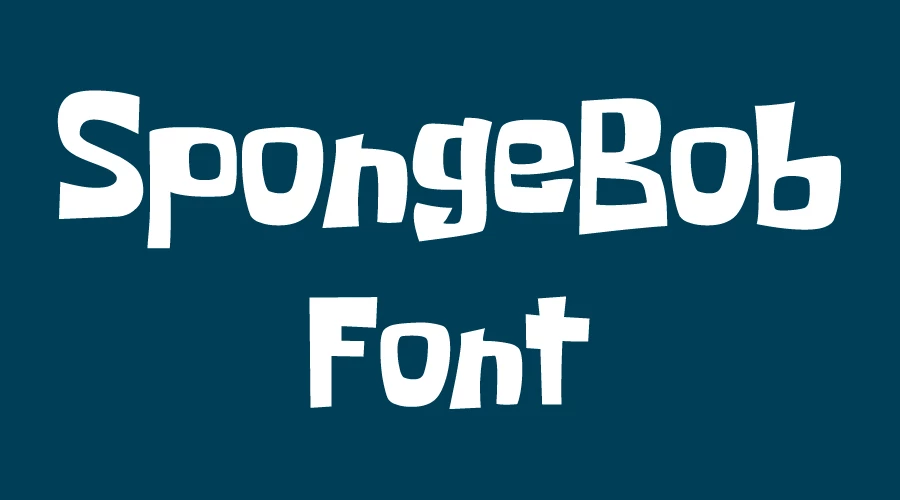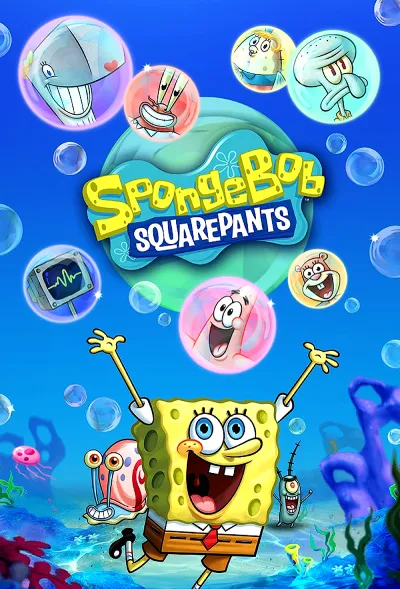
SpongeBob font is a term that refers to the various fonts inspired by the famous TV show SpongeBob SquarePants, which airs on Nickelodeon. It is an American animated television series that features the adventures of SpongeBob and his friends in the underwater city of Bikini Bottom. The show is popular among kids and adults alike.
The SpongeBob SquarePants logo uses two different fonts: “SpongeBob” and “SquarePants”.
SpongeBob Fonts
Spongeboy Me Bob
The Spongeboy Me Bob font is converted directly from letters embedded in the old Spongebob movie website. It is a very accurate recreation of the Spongebob font, with some additional punctuation and symbols. It was created by a fan named EyeOfTheLioness.
SpongeBob Font
Another fan-made replica font recreated by FontGet.
SpongeBoy Regular Font
This is one of the earliest and most well-known SpongeBob fonts. It’s a chunky, rounded font that’s perfect for recreating the title cards and logos from the show.
Spongeboytt2 font
It is based on the original font used in the pilot episode and some early merchandise. It has a smooth and consistent appearance, with rounded edges and curves.
Krabby Patty font
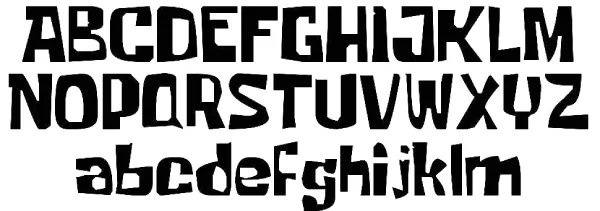
This is a fan-made font inspired by the Krusty Krab restaurant in the show. It has a bubbly and playful look, with thick strokes and circular shapes. It resembles the logo of the restaurant and the food that it serves.
Blob Spongey Lowercase font
This font mimics the distorted and irregular look of SpongeBob when he is dehydrated or squished. It has a lowercase version of the small caps SpongeBob font, Blob Spongey.
Hawaiian Kids font
This font is a new reinterpretation of the title card lettering from the hit Nickelodeon show, SpongeBob SquarePants.
Some Time Later font
This typeface used in the SpongeBob SquarePants show credits. Also in the title cards of some episodes and most famously in the time cards.
Las Vegas Jackpot font
The “SquarePants” part of the logo is set in Las Vegas Jackpot font, which is a free for personal use font created by House Industries. The font is part of their Las Vegas Font Collection, and it has a modified ‘Q’ to match the SpongeBob style.